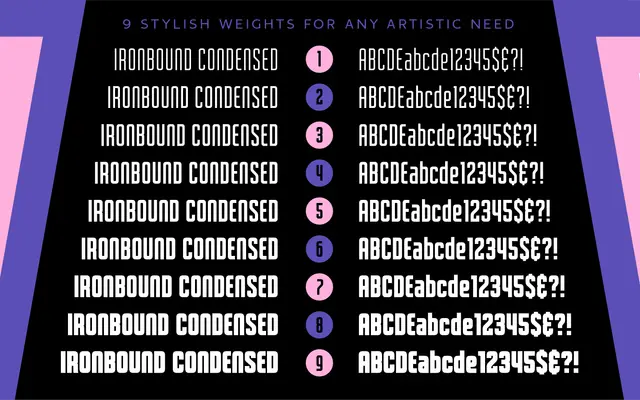
Ironbound Condensed
A nine-weight condensed sans inspired by mid-century neon motel signage in Wildwood, New Jersey and the cast metal letters of classic New York City storefronts.
Designed by Jason Carne, Ironbound Condensed draws from the doo-wop motel strip of Wildwood, New Jersey and the disappearing delicatessens and diners of New York City. Each of the nine weights ships with around 700 glyphs, including small capitals, fractions, superiors, inferiors and coverage for over 75 Latin-based languages. The result is a display typeface with clear period references that works well for signage, packaging and branding with a nostalgic American character.
A condensed sans-serif with strong retro-display character, drawing from mid-century neon signage and cast metal storefront lettering, placing it firmly in display rather than text use.